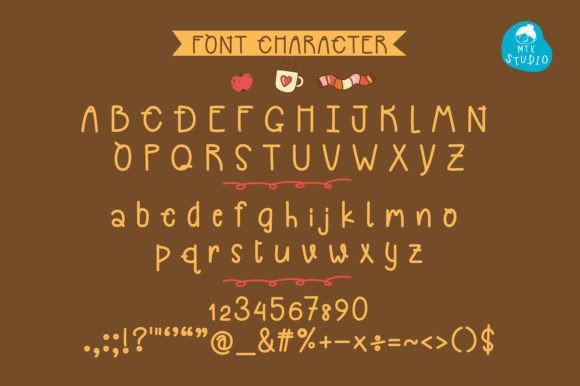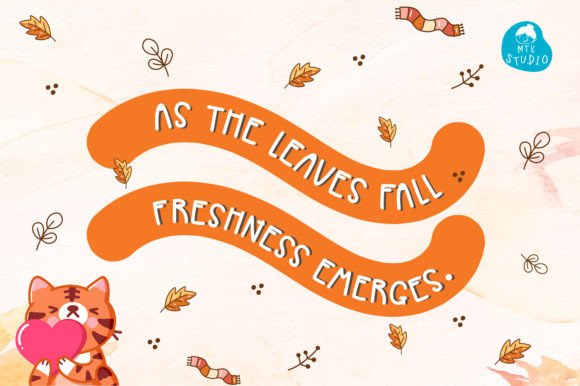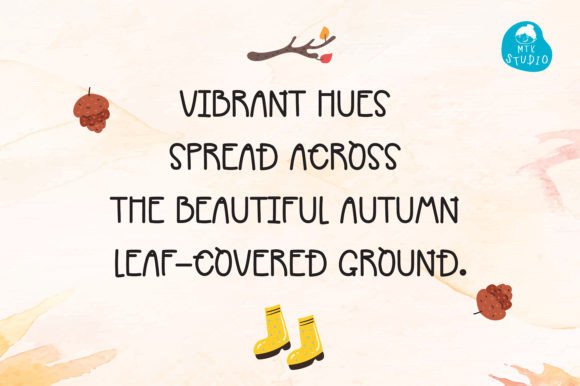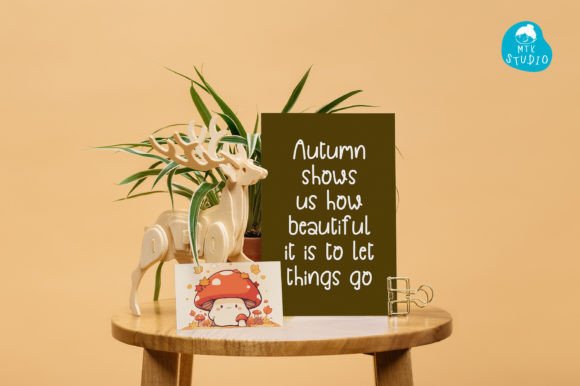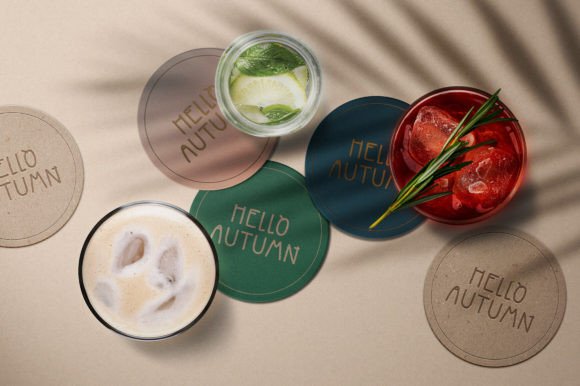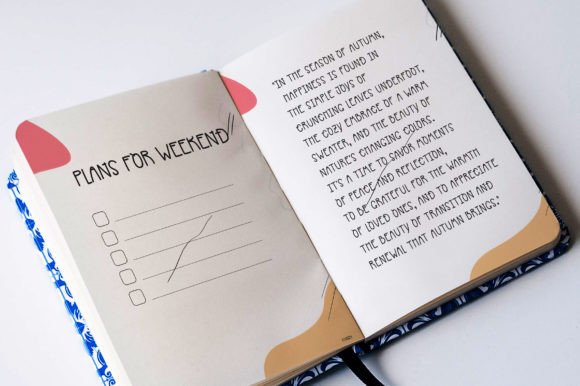
Introduction to Lovelycool Font
Have you ever been working on a creative project and just can’t seem to find the right font to bring it all together? The perfect combination of style and elegance can make all the difference in making your design truly shine. I know I have been there, scrolling through page after page of fonts, searching for that one special one that just feels right. And then, it happened – I stumbled upon the Lovelycool Font.
With its natural and unique handwritten style, the Lovelycool Font is a game-changer for designers. Its high-quality design makes it a versatile resource that can be used in a wide range of creative projects, from digital graphics to print materials. Plus, it’s available for a free download, making it an accessible design resource for anyone.
Whether you’re working on a design project with a transparent background or need a font that will add a personal touch to your work, the Lovelycool Font is an excellent choice. Its friendly and approachable style makes it a valuable addition to any designer’s toolkit, and with its free download option, you can start using it right away in your next creative project.
Key Features of Lovelycool Font
- Unique, hand-drawn design with a transparent background for seamless integration
- Large character set with a wide range of glyphs, including Latin, Cyrillic, and Greek alphabets
- Perfect for branding, logos, and typography-based design projects due to its elegant and modern feel
Honest Review: Lovelycool Font
I recently had the chance to work with the Lovelycool Font, and I must say it’s been a pleasant experience. The font itself is a high quality design resource that can elevate any creative project. One of the standout features is its versatility – it’s perfect for use with a transparent background, making it easy to integrate into your designs.
Overall, I’m impressed with the Lovelycool Font. It’s a great design resource that can add a touch of elegance to your creative projects. While it may have some limitations, it’s definitely worth considering for your next design project.
- High quality design resource
- Suitable for a wide range of creative projects
Tips for Getting the Most Out of Lovelycool Font
For a transparent background, use the font in combination with a transparent image or background. This will create a clean and modern design. Additionally, use the font in creative projects such as logos, business cards, and social media graphics to add a touch of elegance and sophistication.